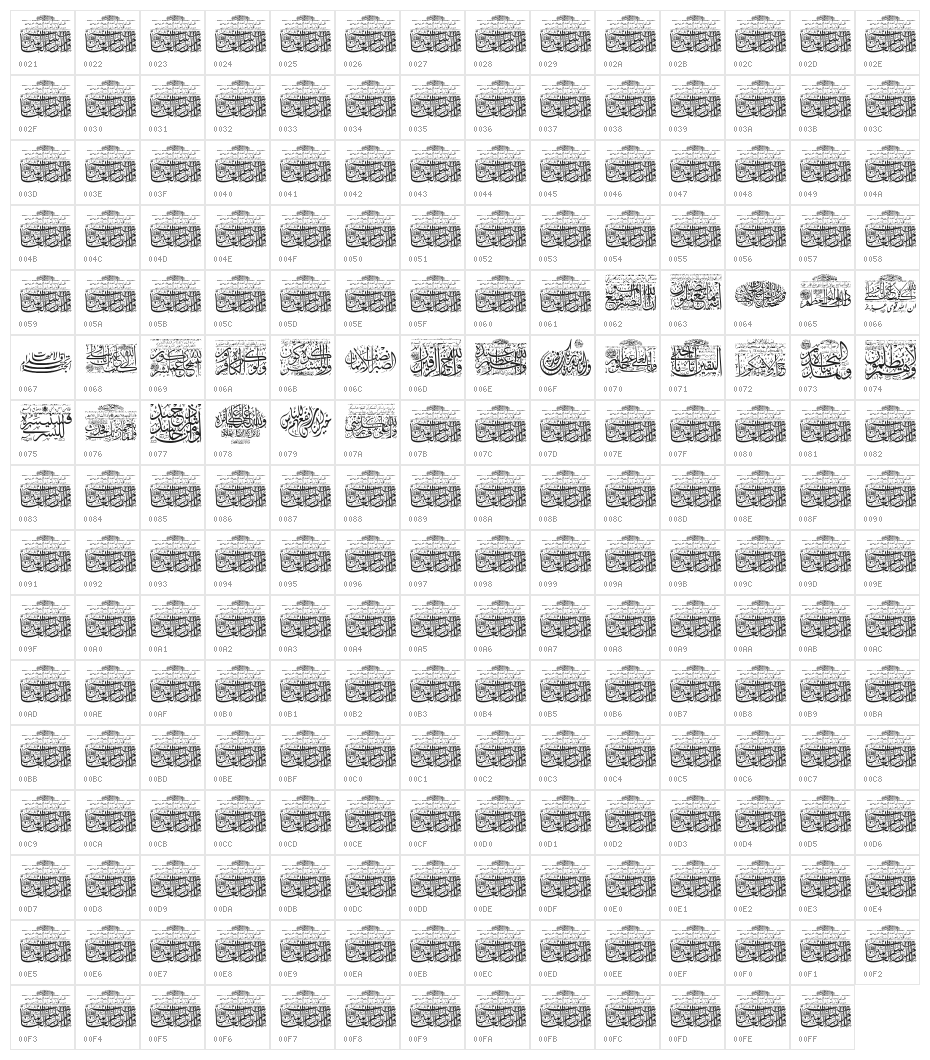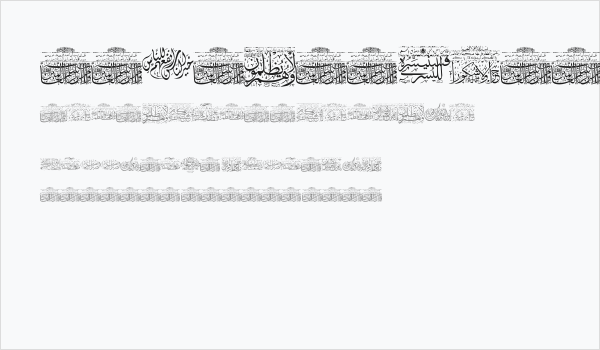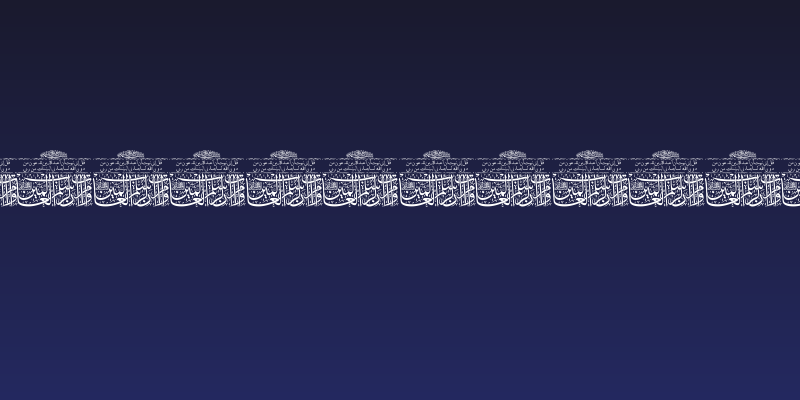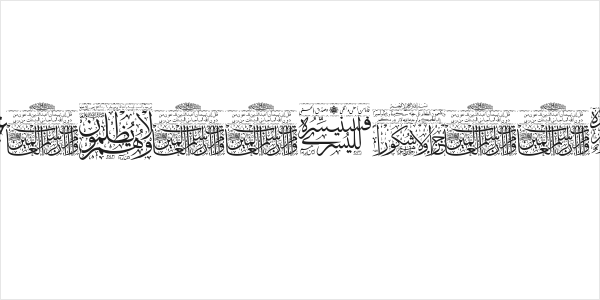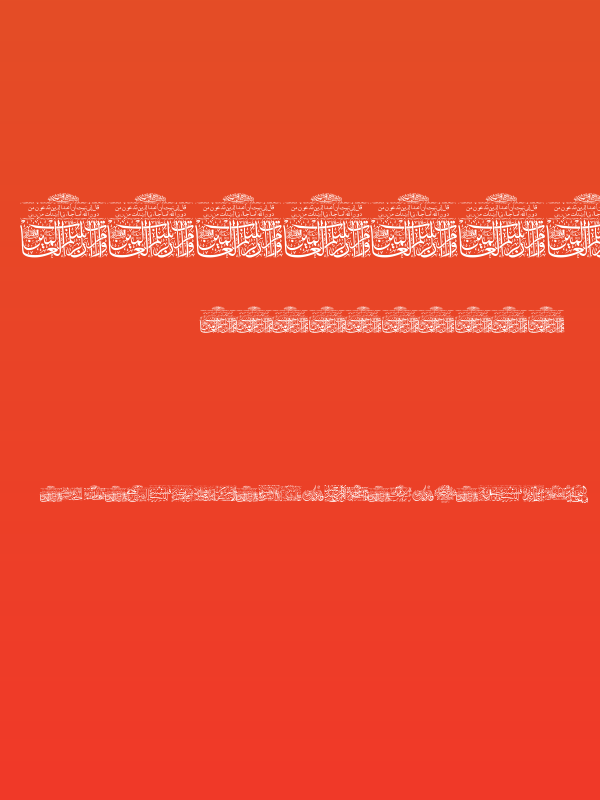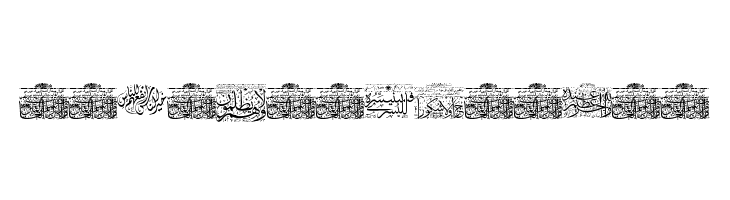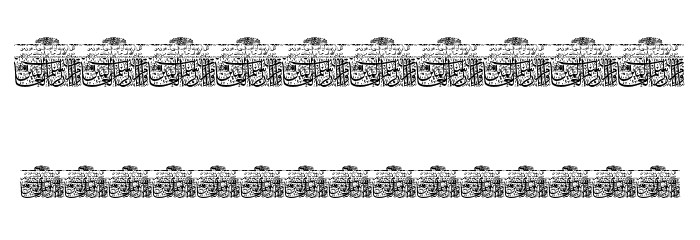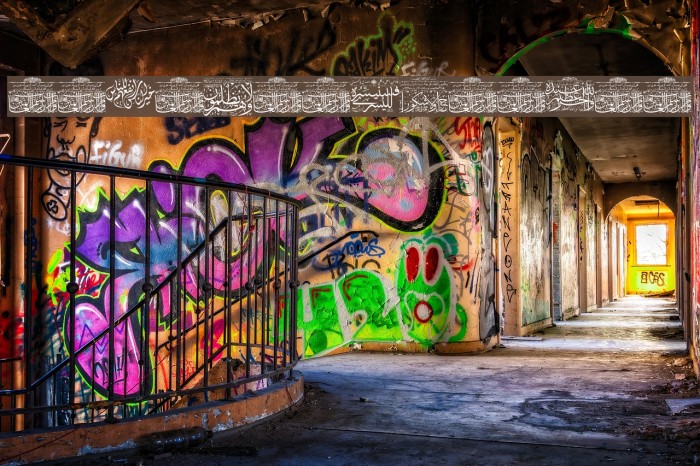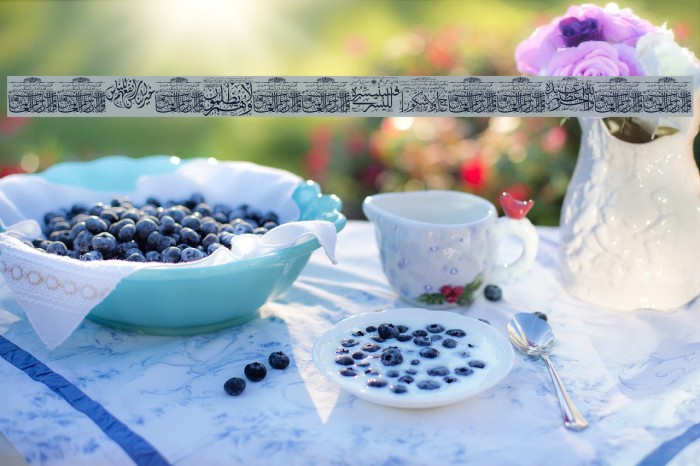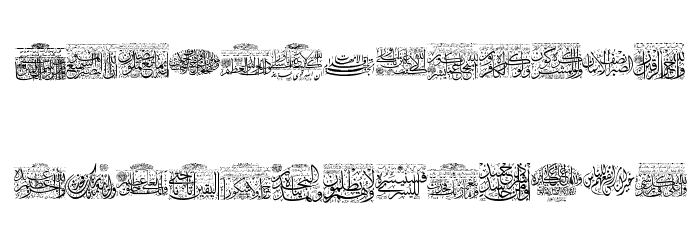
Aayat Quraan 7 Font
Aayat Quraan 7 Description
Highly ornate Arabic script with intricate diacritical marks and decorative flourishes, featuring dense, interconnected letterforms and elaborate detailing typical of traditional religious calligraphy.
| Width | Condensed |
| Overall Style | Traditional, Ornate, Religious |
| Use Case | Religious scripture, Art pieces, Ceremonial headings |
| Proposed Projects | Religious texts, ceremonial documents, Quranic verses, Islamic art, decorative panels. |